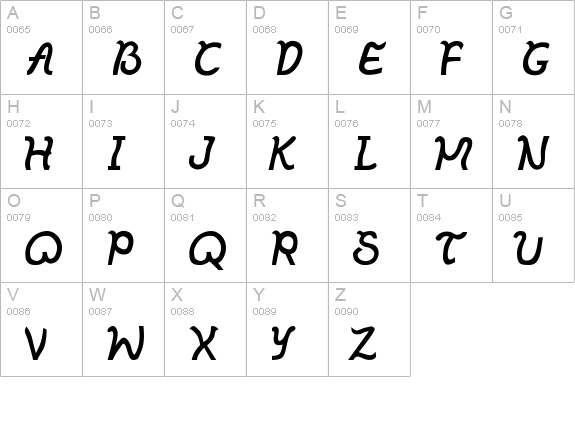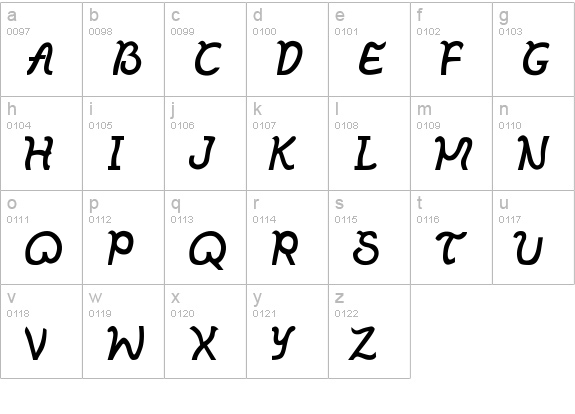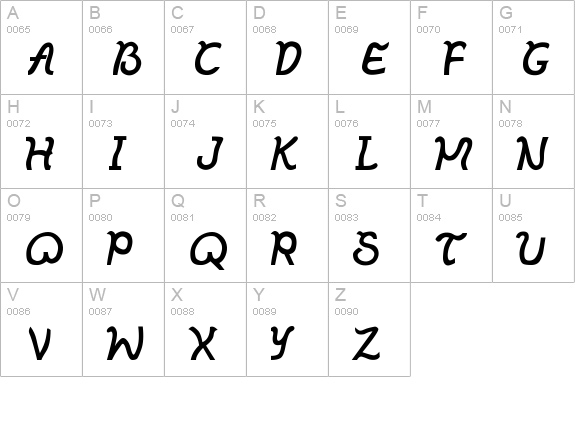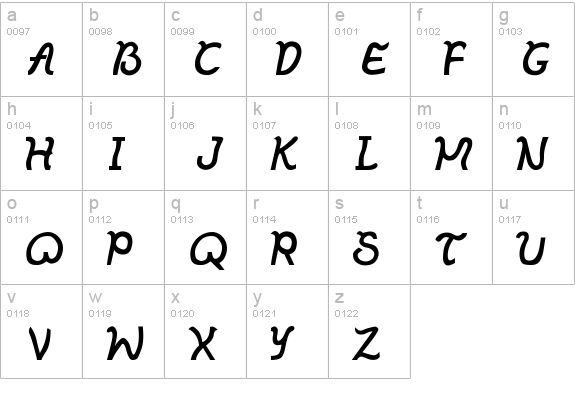
New WGL4 Font Details
Introducing the remarkable New WGL4 font - a true gem in the world of typography. This font boasts an exquisite blend of modern aesthetics and timeless elegance, making it the perfect choice for any design project. With its clean lines, harmonious proportions, and sophisticated letterforms, New WGL4 effortlessly captures attention and adds a touch of sophistication to any creative endeavor. What sets New WGL4 apart is not only its stunning visual appeal but also its accessibility. This font is freely available to download at FontsMarket.com, making it an invaluable resource for designers, artists, and enthusiasts alike. Embracing the spirit of inclusivity, New WGL4 ensures that anyone can enjoy the benefits of this extraordinary font without any barriers. Designed with versatility in mind, New WGL4 is suitable for a wide range of applications. Whether you're working on branding, advertising, editorial design, or even personal projects, this font offers the flexibility and adaptability to meet your every need. Its extensive character set includes a variety of weights, styles, and glyphs, allowing you to customize and experiment with different typographic compositions effortlessly. New WGL4's legibility and readability are second to none, ensuring that your message will be conveyed with clarity and impact. Its meticulously crafted letterforms create a harmonious rhythm that adds a sense of professionalism to any text. Whether used for headlines, body text, or even in intricate typographic illustrations, this font will elevate your work to new heights. As a free font, New WGL4 not only provides a high-quality typeface but also encourages creativity and exploration. It empowers designers to experiment, innovate, and push the boundaries of their craft. With New WGL4, the possibilities are endless, and the results are truly extraordinary. So, why wait? Experience the beauty and versatility of New WGL4 today. Head over to FontsMarket.com and download this remarkable font for free. Unleash your creativity and let New WGL4 transform your designs into masterpieces that captivate and inspire.